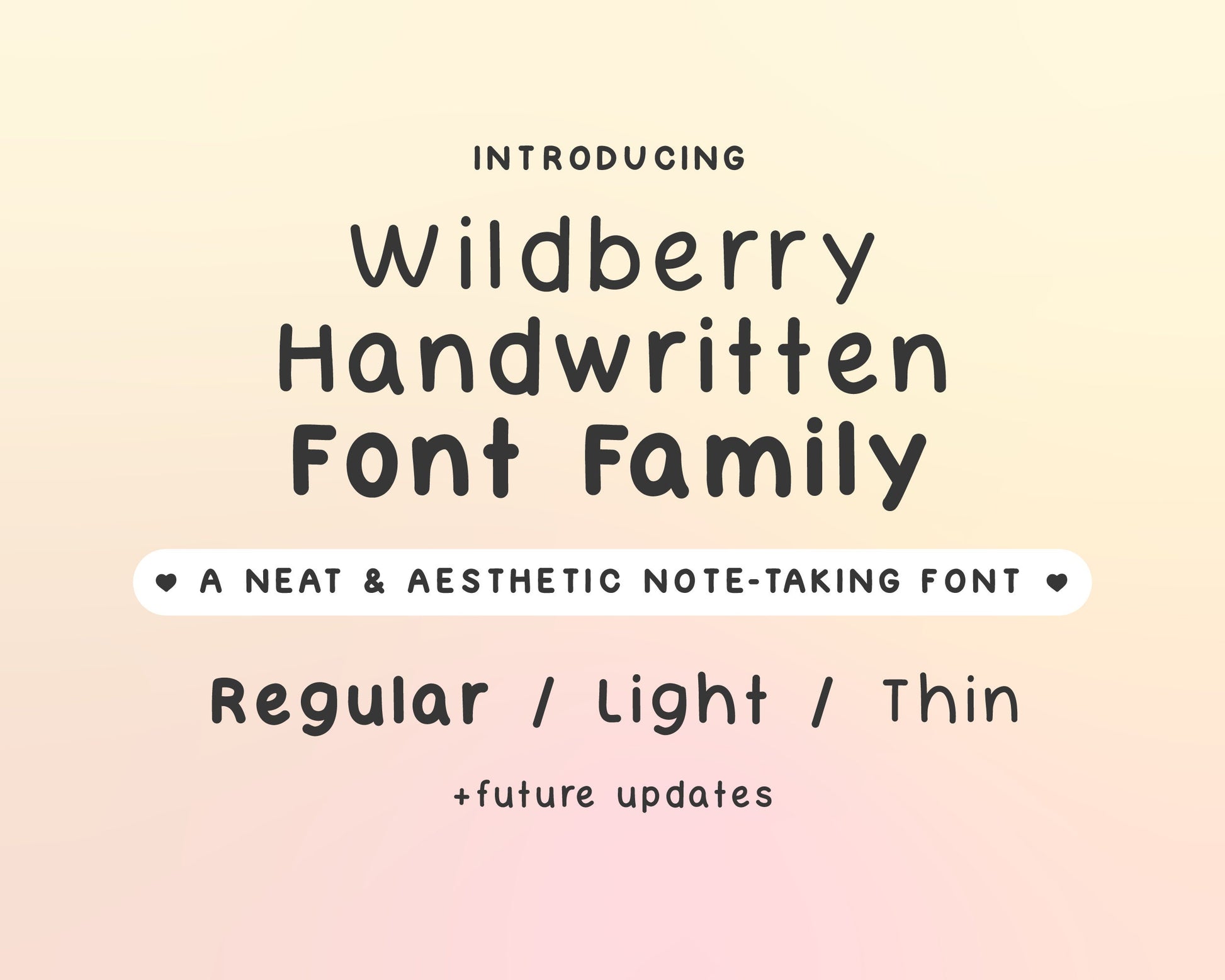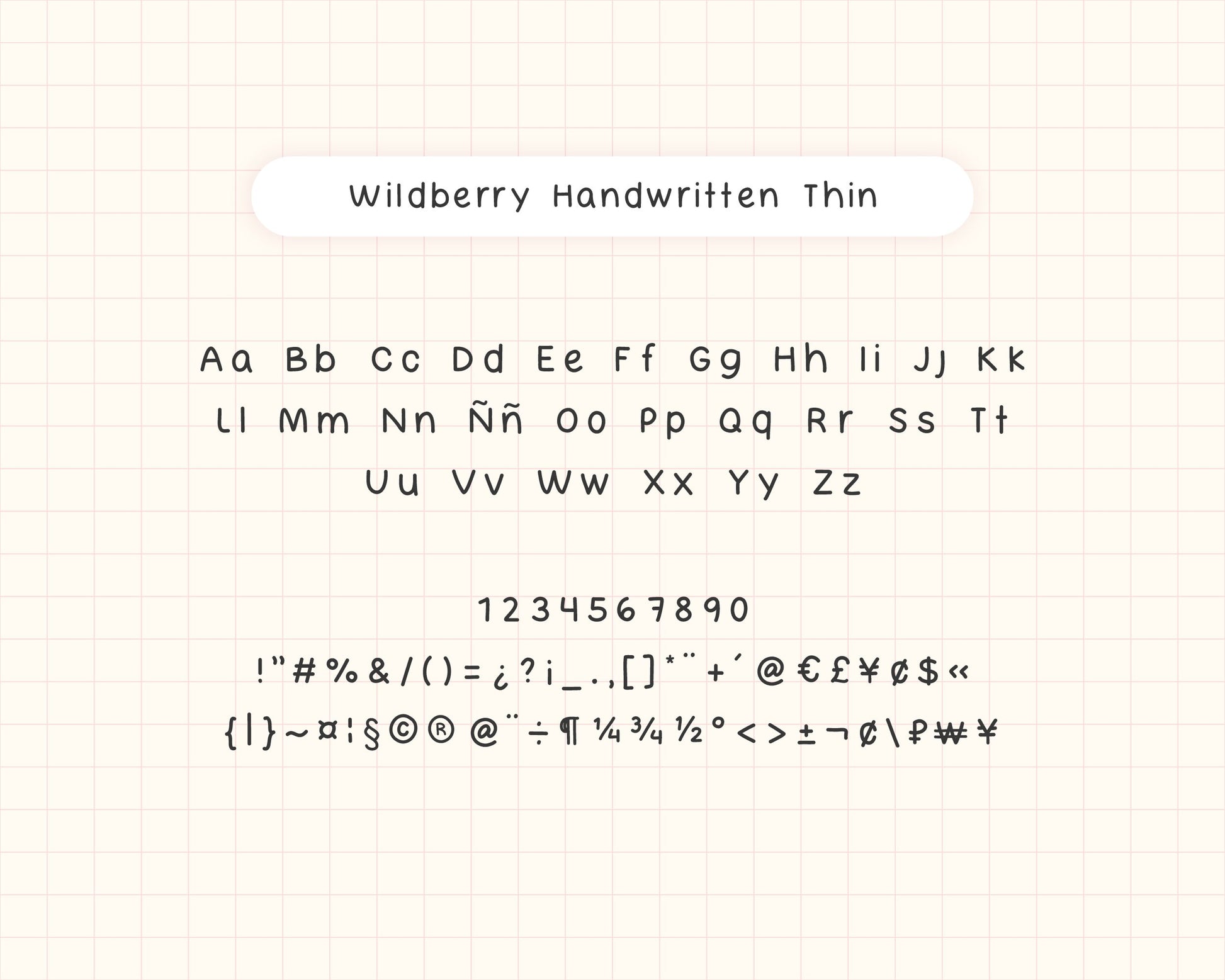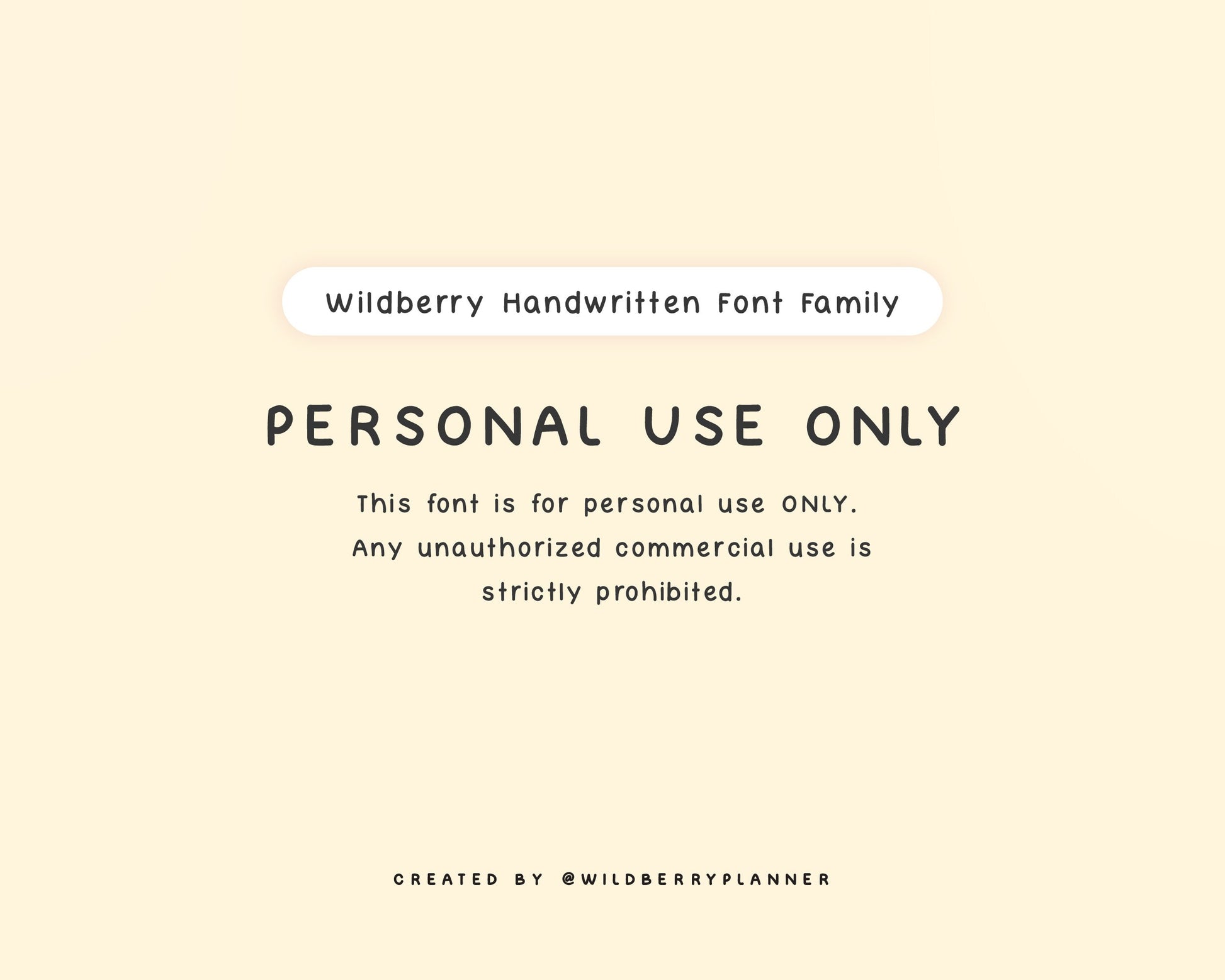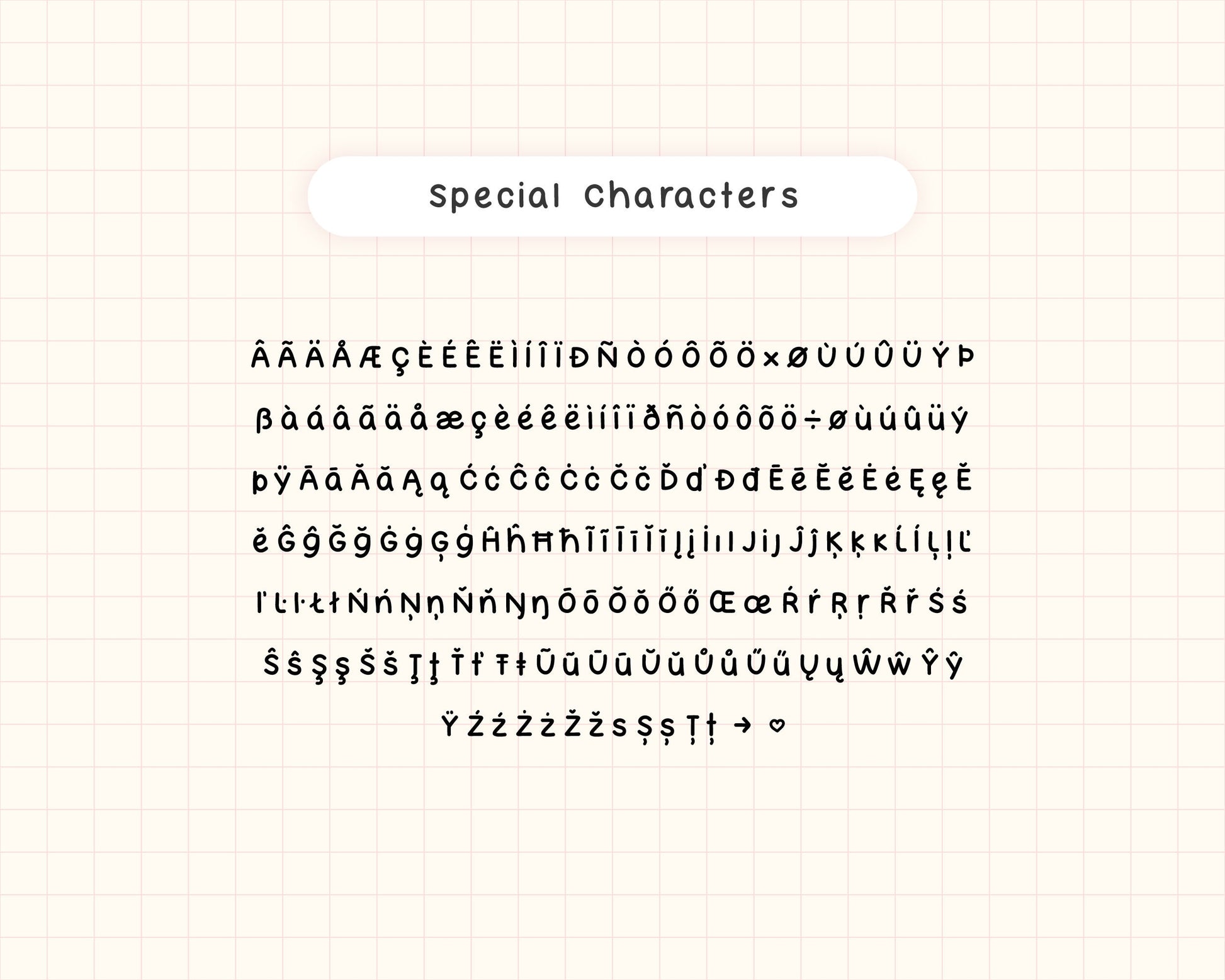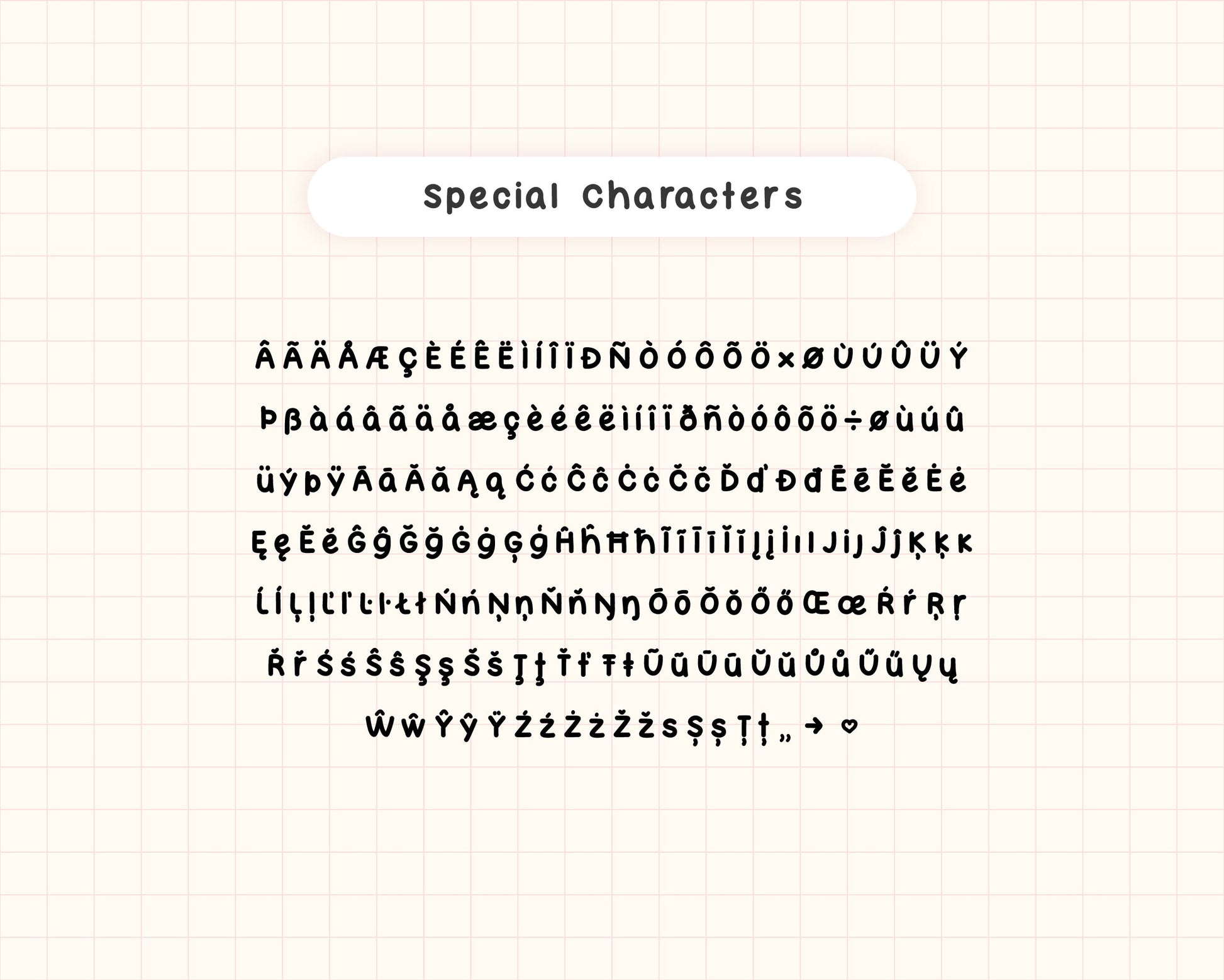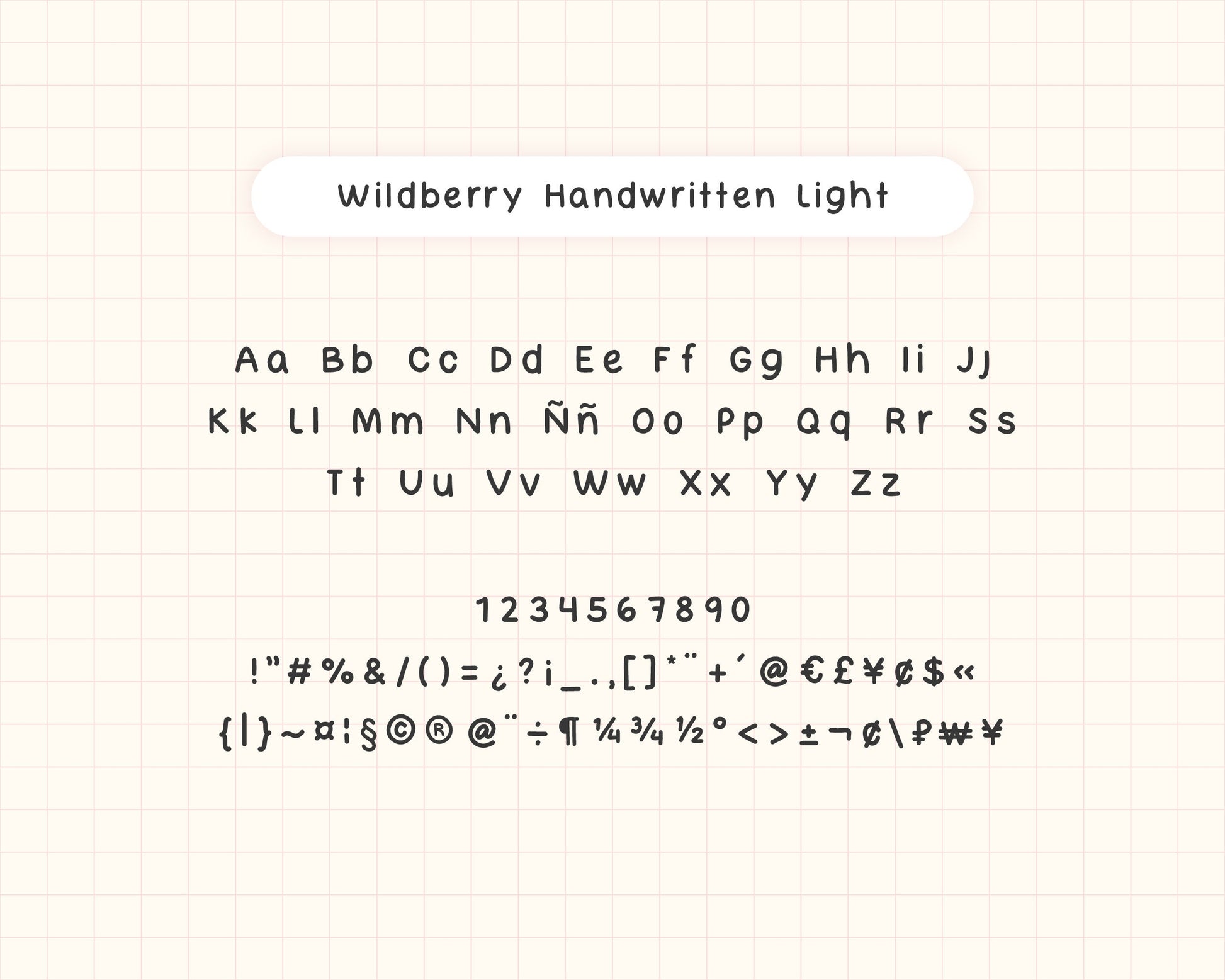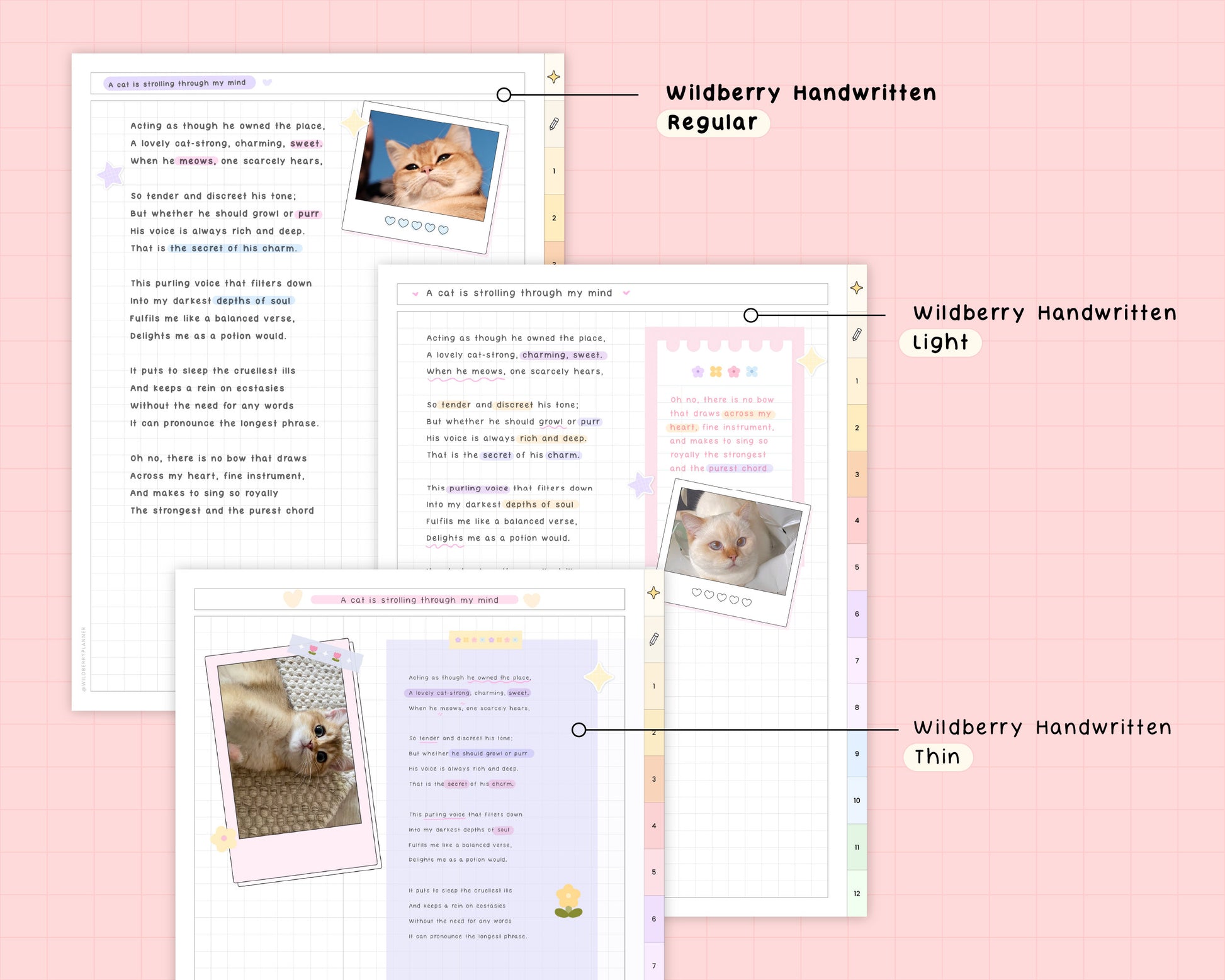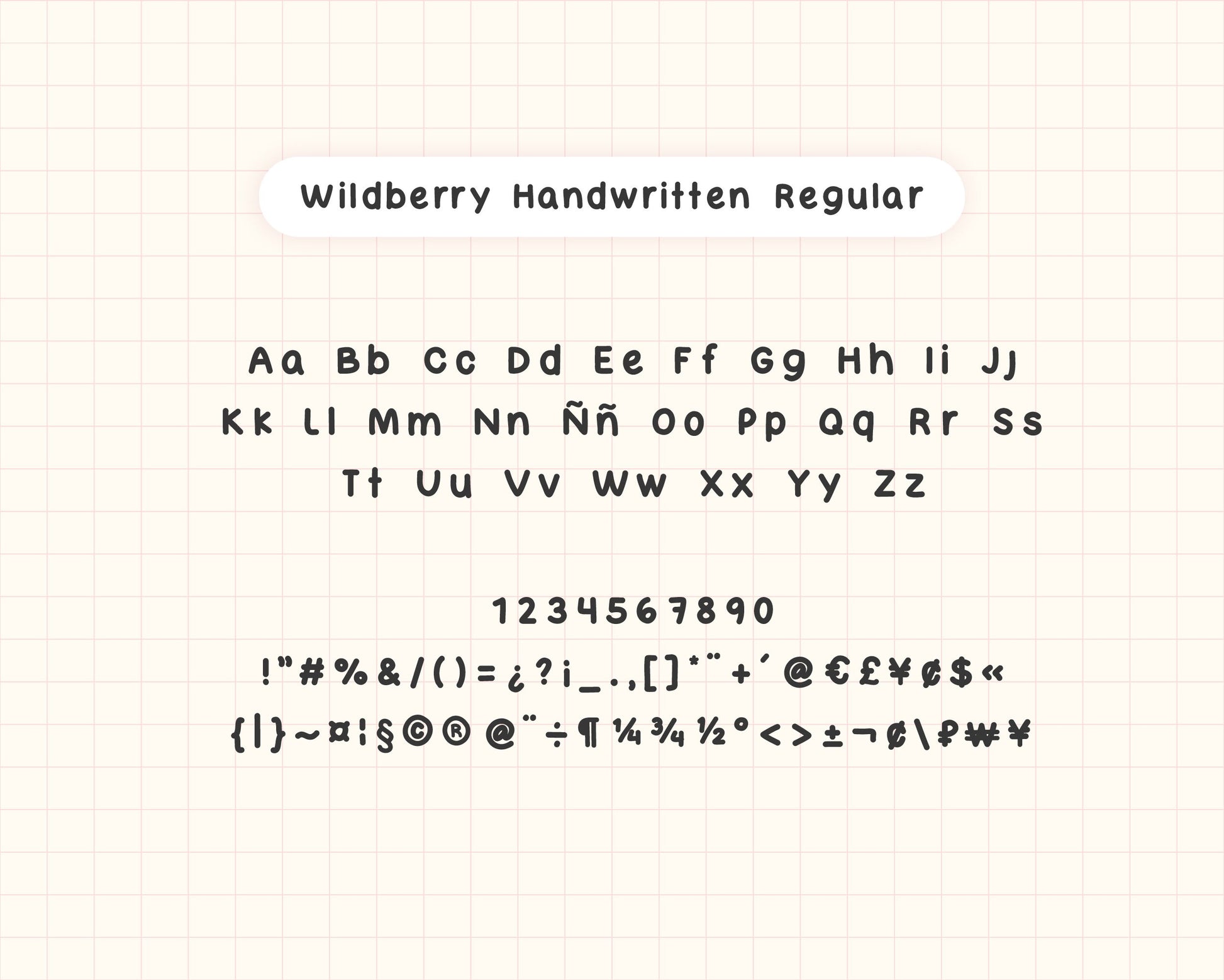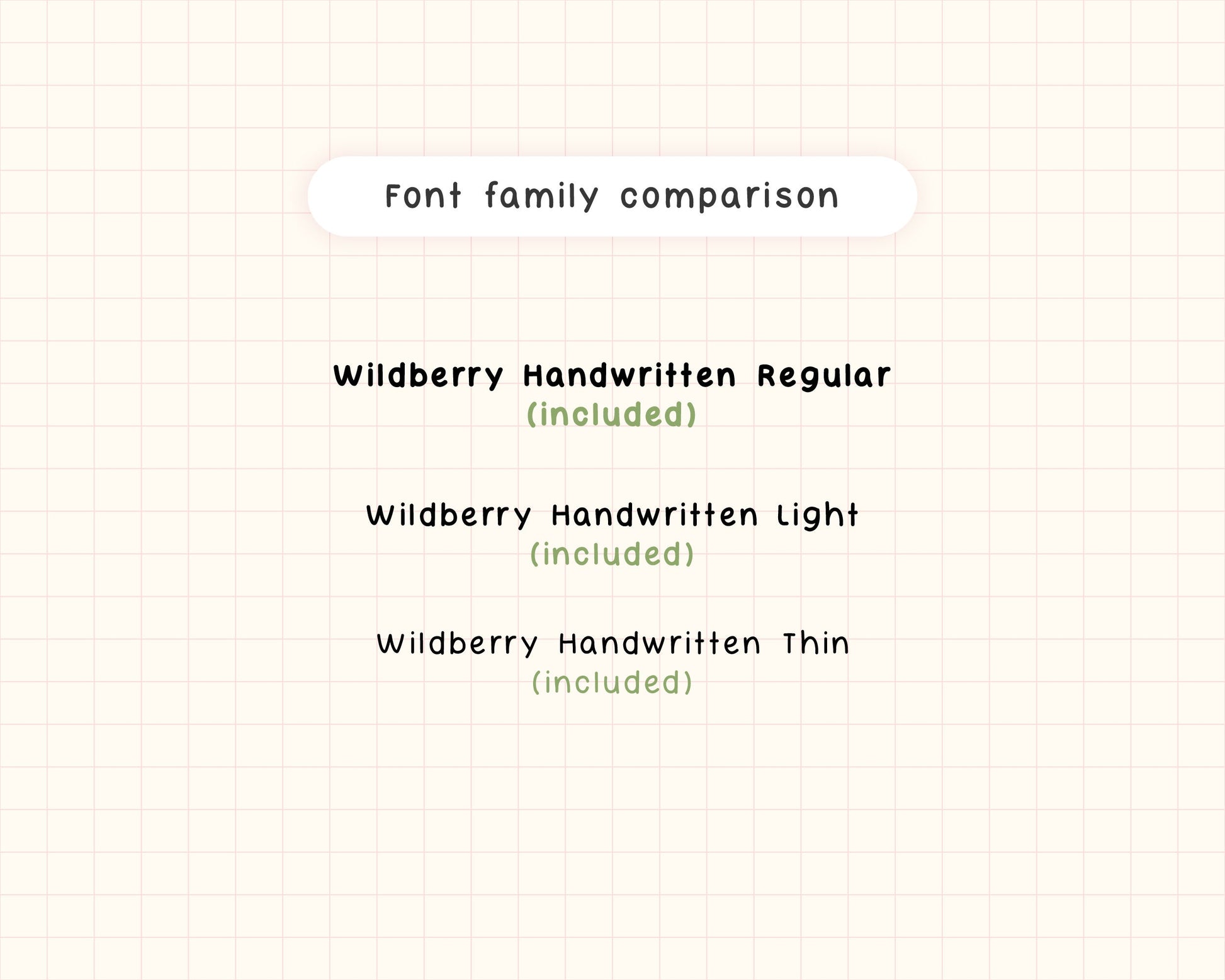
Wildberry Handwritten Font Family - Bundle
Wildberry Handwritten Font Set
This cute handwritten font is perfect for digital planning, note-taking, study notes, collage notes, and more. The font supports multiple languages, please check the special characters image for details.